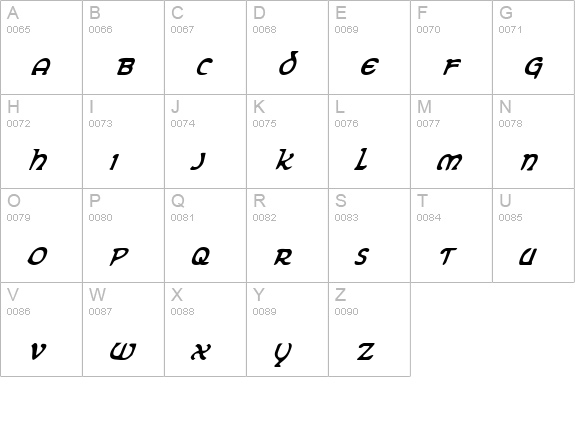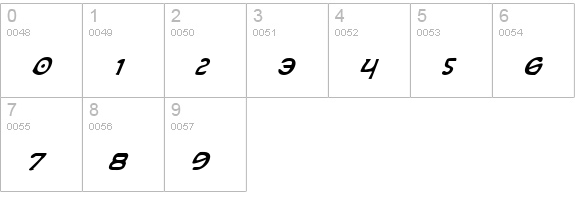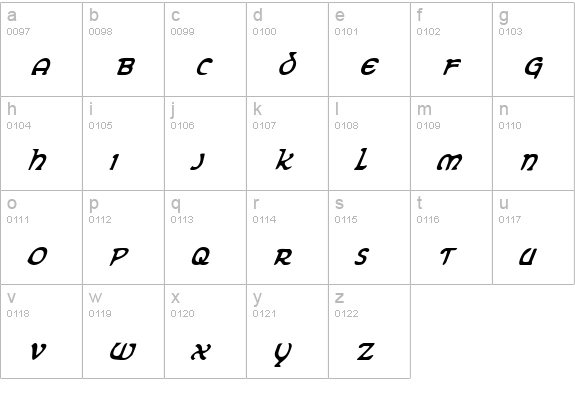
Erin Go Bragh Condensed Italic is a distinctive, condensed-width, italic variant in the Erin typeface family \xE2\x80\x94 well suited to design and typography projects.
Erin Go Bragh Condensed Italic font exudes elegance and sophistication with its sleek, slanted design. The condensed style of this font makes it perfect for adding a modern touch to any project, whether it be for branding, invitations, or editorial design. The italicized characters add a sense of dynamism and flair, making your text stand out with a touch of personality. The Erin Go Bragh Condensed Italic font is not only visually striking but also versatile, suitable for a wide range of design applications. Its clean lines and subtle curves create a harmonious balance that is both eye-catching and easy to read. This font is sure to elevate your designs and captivate your audience. Best of all, Erin Go Bragh Condensed Italic font is available for free download at FontsMarket.com. So go ahead and enhance your projects with this stunning typeface without breaking the bank. Download it today and let your creativity soar with this stylish and contemporary font.